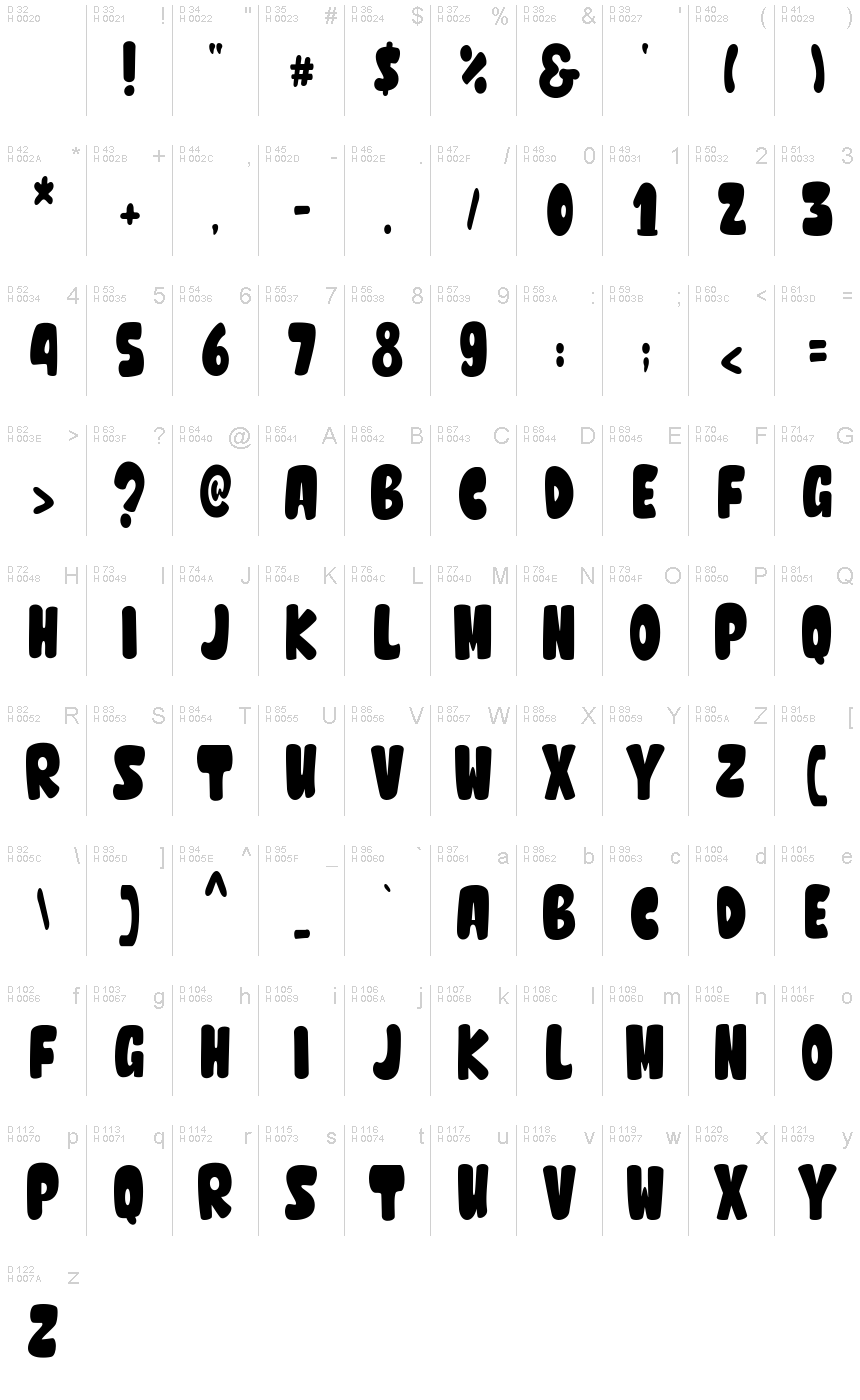
Valkids, crafted by Letterara, is a playful display font that exudes a sense of whimsy and fun. With its cartoon style and bold character, this typeface invites an aura of cheerfulness to any design. The letters showcase a condensed form that allows for impactful headlines without overwhelming the space. This charming font lends itself beautifully to projects aimed at younger audiences or any context needing a touch of lightheartedness.
Ideal for captivating titles in children's books, engaging advertisements, spirited event posters, or creative branding endeavors, Valkids ensures your message is delivered with a delightful twist. Its ability to convey warmth and joviality makes it an excellent choice for designers looking to infuse their work with personality and joy.